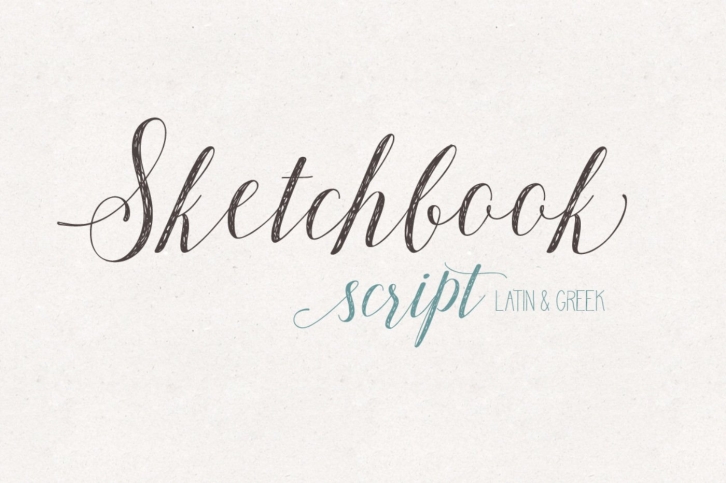
Sketchbook script is an elegant, modern calligraphy font, with a bouncing baseline, designed to give an imperfect hand-sketched look at your work. It is suitable for a variety of applications such as stationery design, invitations, logos, labels, posters, merchandise products, etc.
It is offered in 2 styles: regular and slant, and contains 844 glyphs with standard ligatures, stylistic alternates, swashes, 2 styles of initial and terminal letters. It supports Central, Eastern, Western European, Baltic, Greek and Turkish languages and delivered in Opentype and Truetype format. The fonts are fully unicode-mapped (PUA encoded).